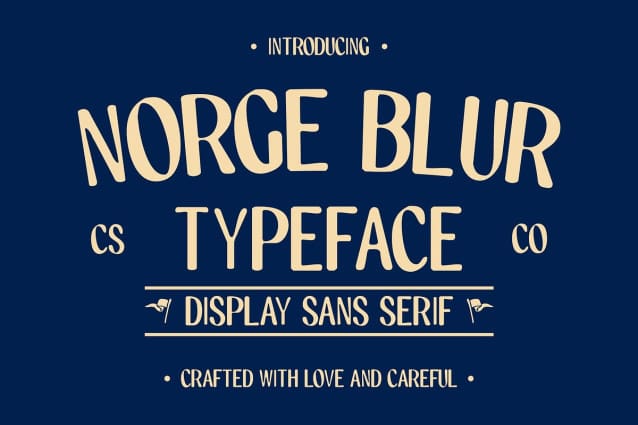
Norge Blur Font
Norge Blur Font is a classic sans-serif font that combines the clean lines of modern typography with a subtle retro vibe. Its simple, sleek shapes evoke a sense of nostalgia, making it perfect for designs that want to convey timeless elegance. The retro influence provides a nod to the past while maintaining a contemporary and fresh feel.
Blur Effect for Artistic Dimension The added blur effect gives Norge Blur an artistic dimension, enhancing its visual appeal with a touch of mystery. This unique feature softens the edges of the characters, creating a dynamic contrast between clarity and subtle abstraction. The blur effect adds depth, making the font stand out in creative projects.
Versatile for Branding and Design Norge Blur is an ideal choice for designs that aim to merge retro charm with modern sophistication. Its versatility makes it perfect for a variety of applications, including branding, posters, promotional materials, and more. Whether you’re looking to capture attention with a unique retro aesthetic or give your project a stylish update, Norge Blur offers a perfect blend of classic and contemporary design elements.